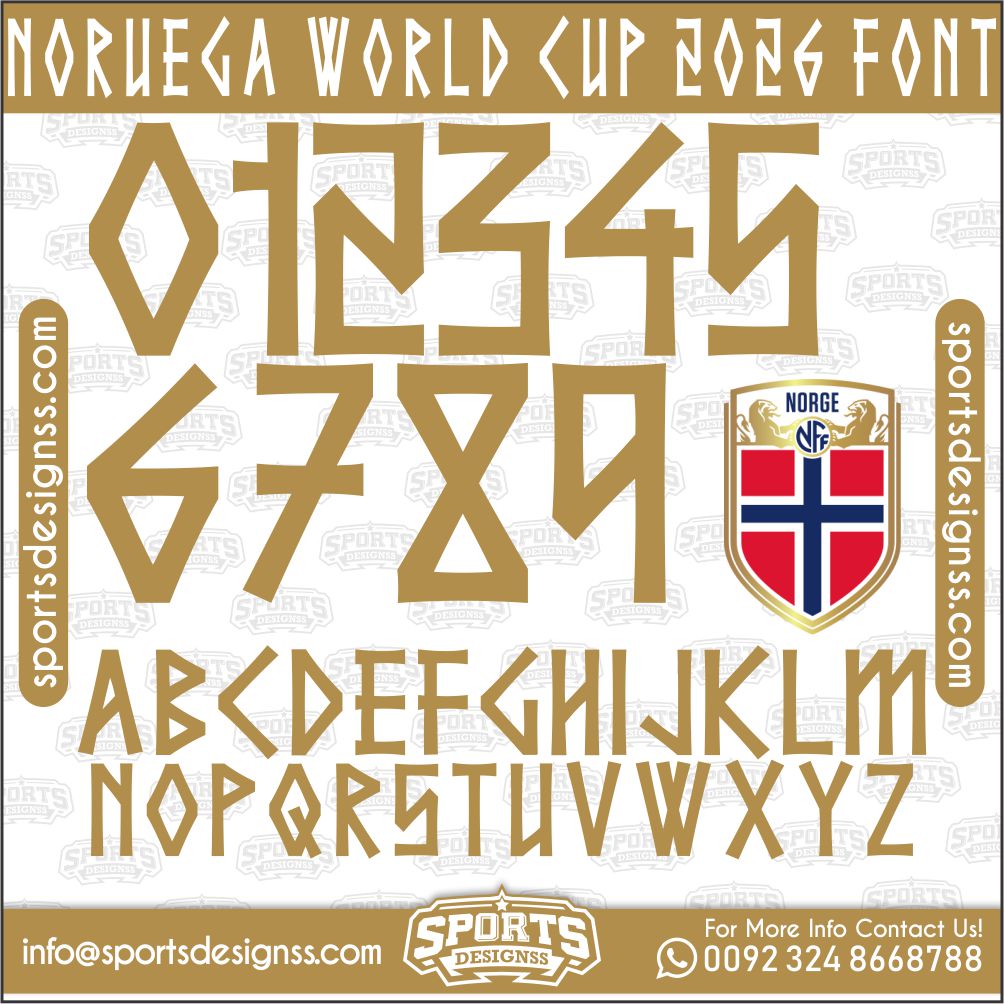
Recreate authentic football jersey designs with the NORUEGA WORLD CUP 2026, built for realistic, match-ready sports visuals.
Upgrade your designs with the NORUEGA WORLD CUP 2026, a premium football jersey font inspired by modern professional sports aesthetics.